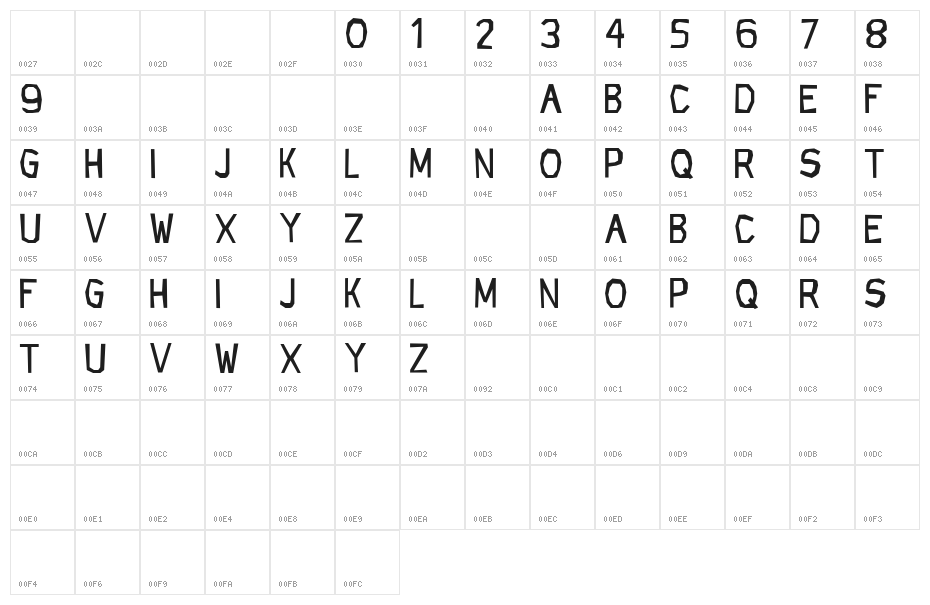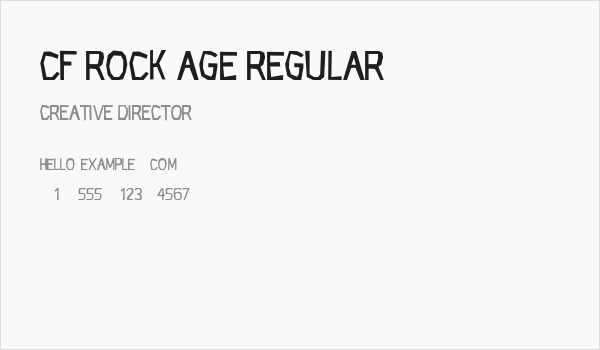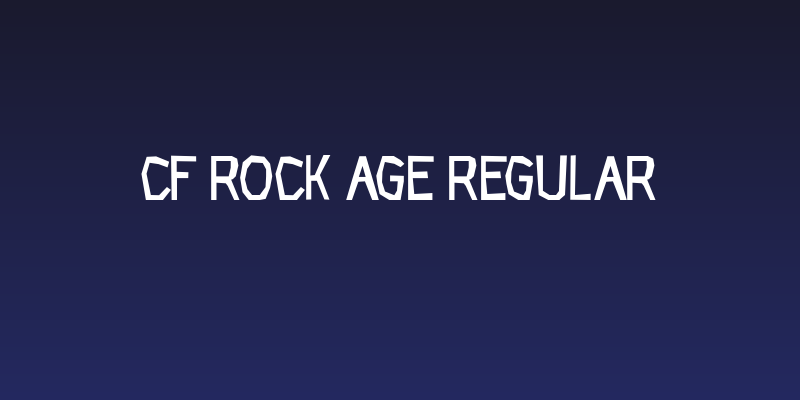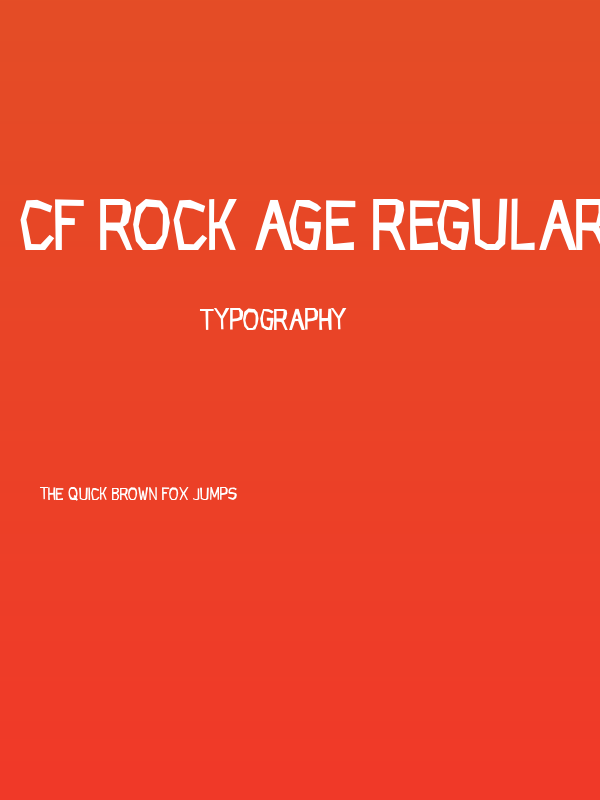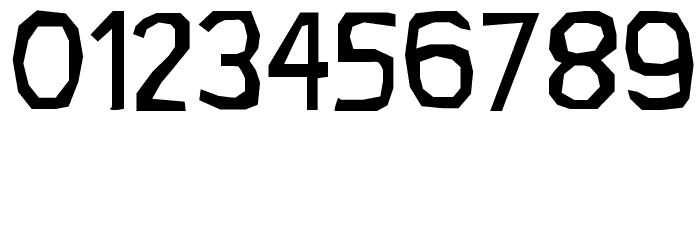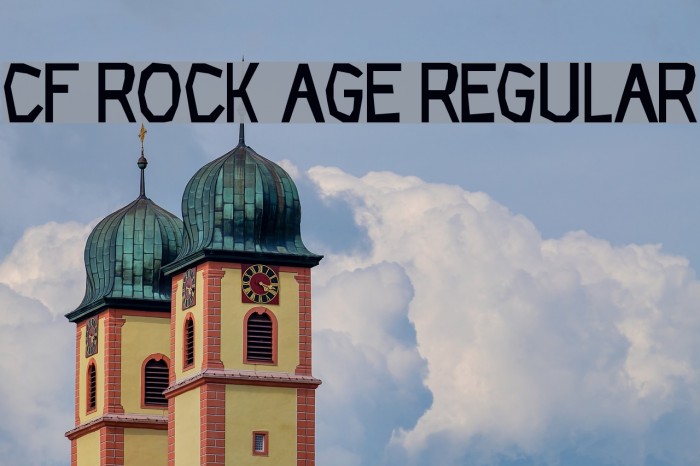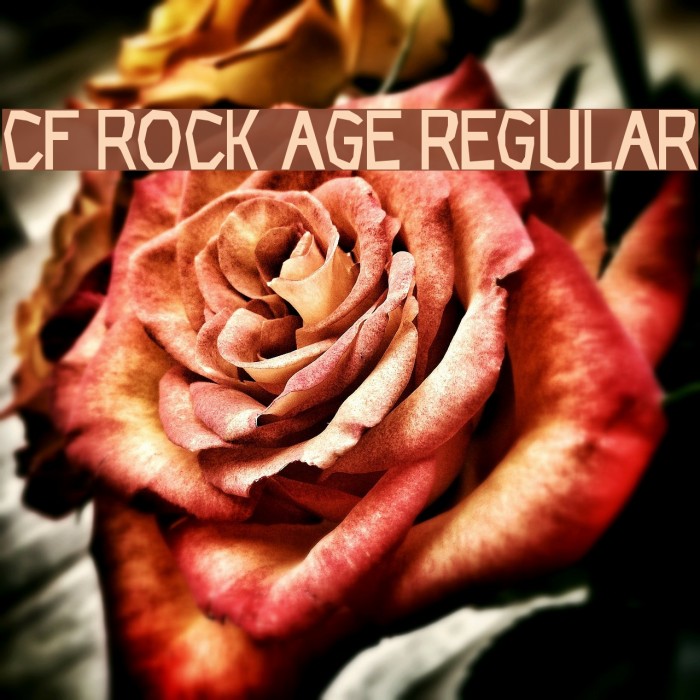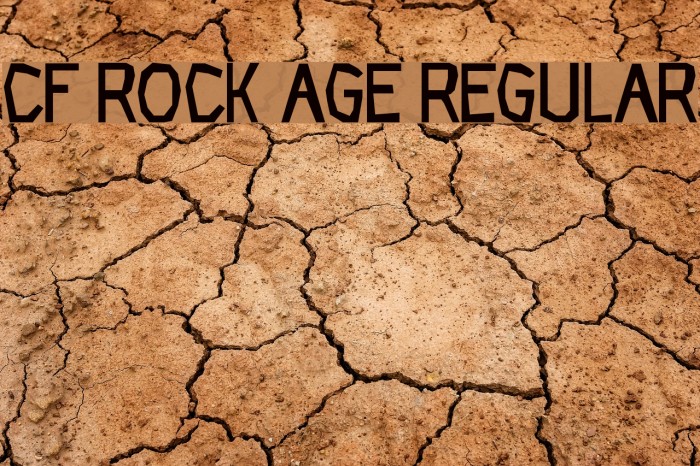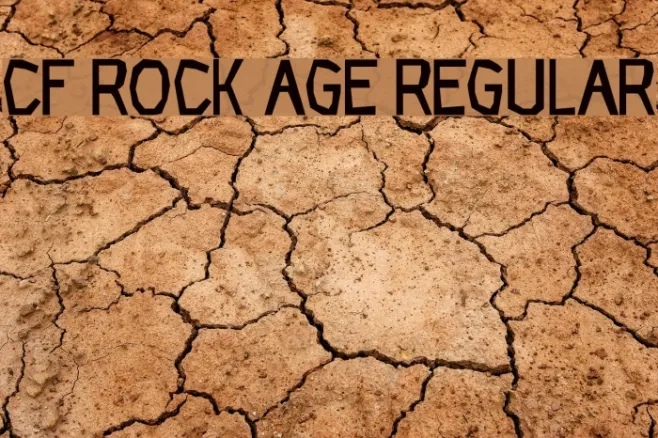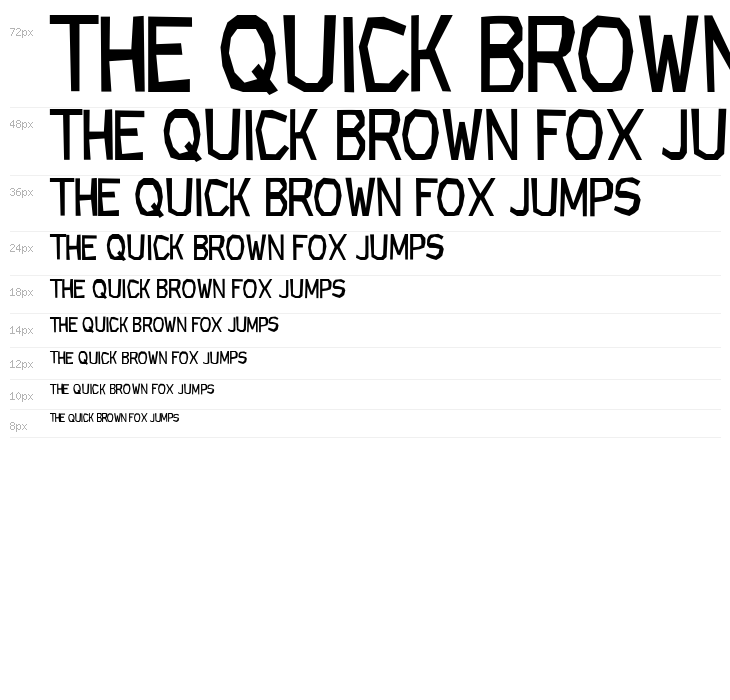
CF Rock Age Regular Font
CF Rock Age Regular Description
This font features a rugged, angular design reminiscent of chiseled stone, giving it a bold and striking appearance. The characters are constructed with sharp, irregular edges that create a sense of movement and energy. The uppercase letters are particularly prominent, with a strong geometric influence that makes them stand out. The numbers and special characters maintain this aesthetic, ensuring a cohesive look across all glyphs. This font is ideal for projects that require a touch of edginess and a modern, yet primitive feel.
| Proposed Projects | Ideal for branding, posters, and titles that need a bold, edgy look. |